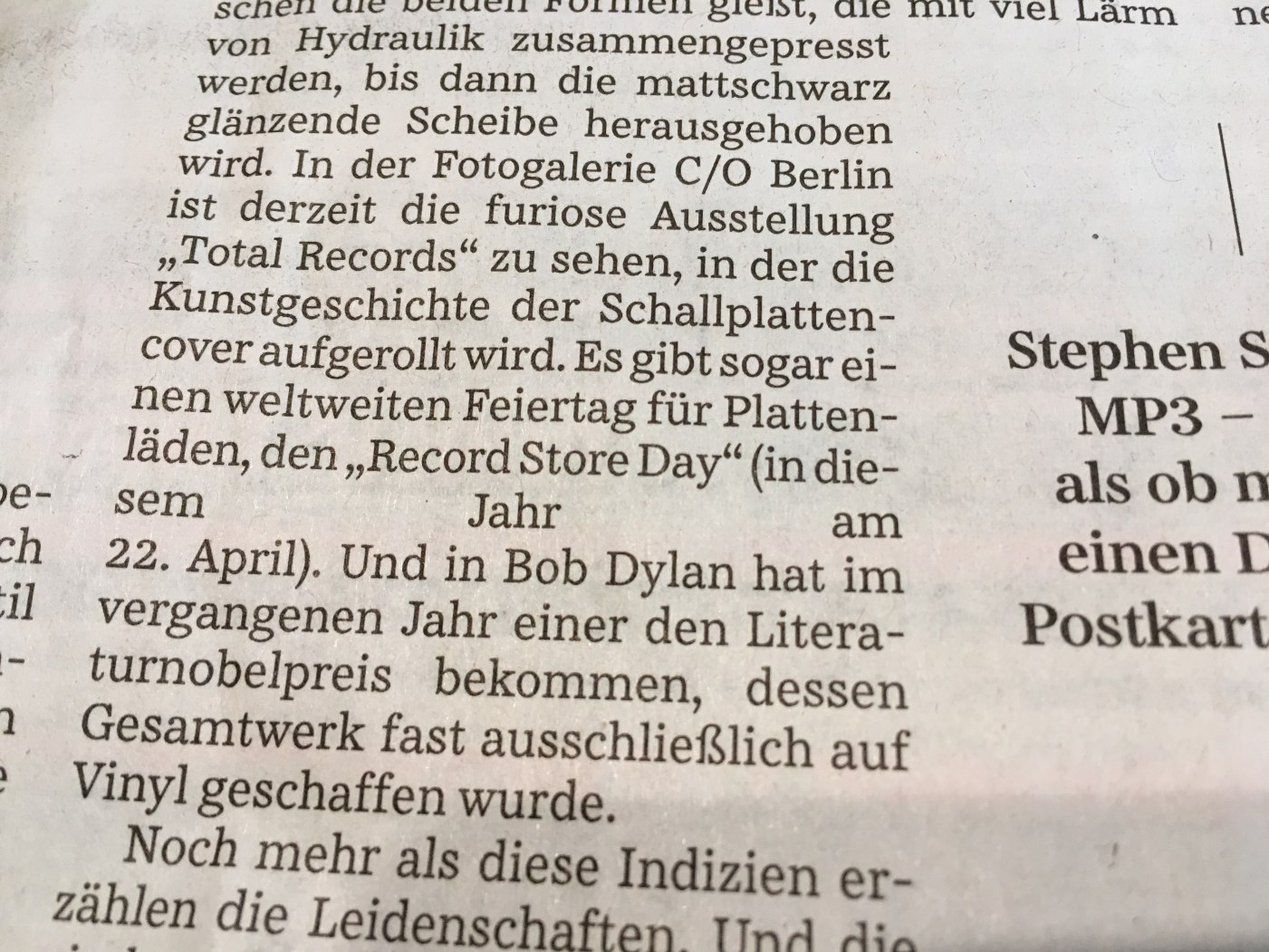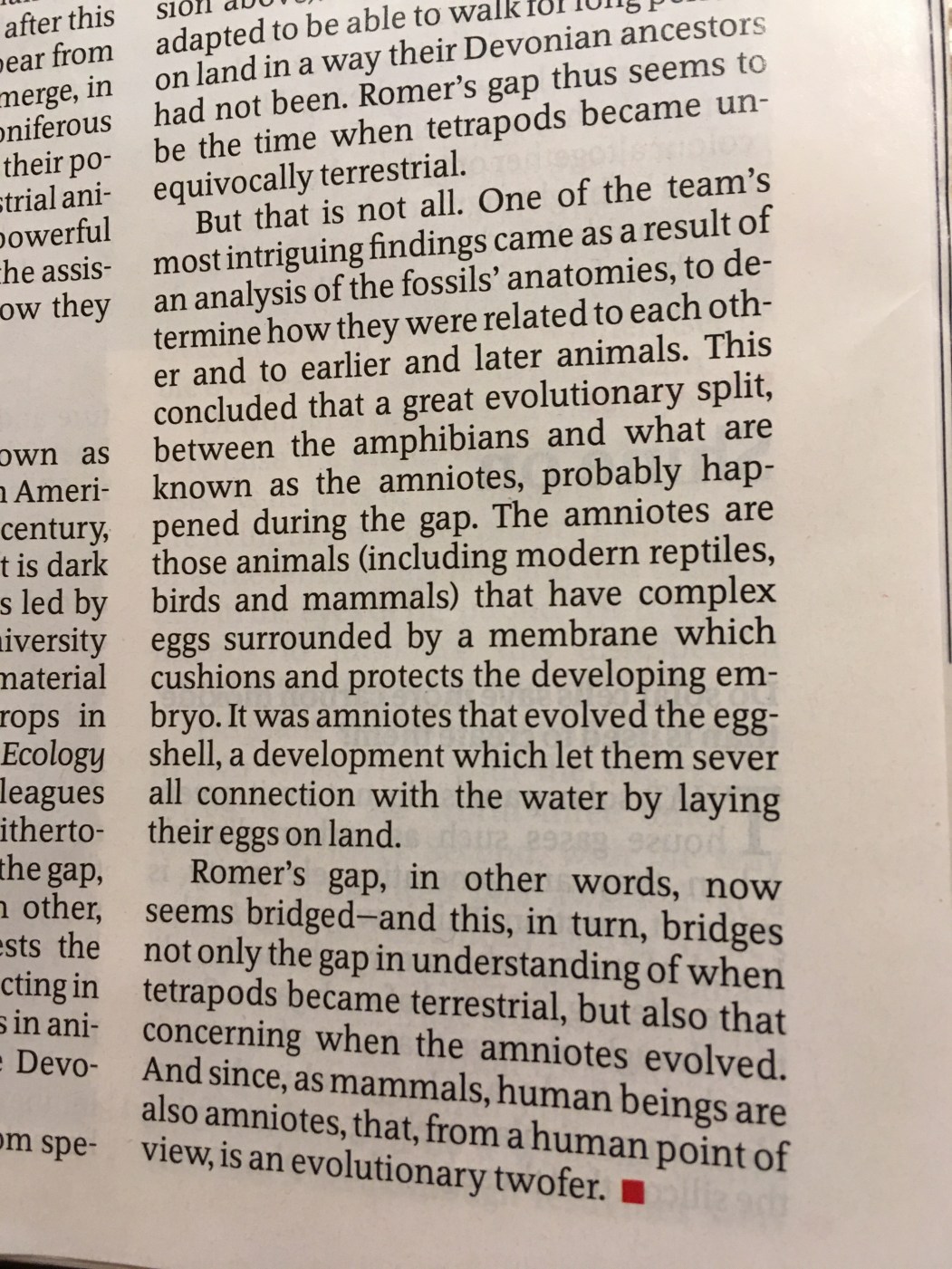
Opinions on justification
I tend to be an anti-justify guy, in print as well as on screen. On screen is more dangerous since you don’t have complete control over how it’s presented. Narrow columns can often create drastically uneven word spaces, especially if you don’t have hyphenation.
A colleague asked me:
... Do you feel you are in the majority on this? (anti-justification) ...
I answered:
Depends on who you ask. I think most people don’t really care, but typographers tend to be an adamant bunch, and they seem to be pretty much 50–50 on justification. If type is set well, with good hyphenation, adequate column widths (55 to 65 characters, incl. spaces, per line), etc., justified is OK. Flush-left-ragged-right (FLRR) also needs to be set carefully, but it always has equal word spacing (providing double spaces haven’t popped up anywhere). Some will say that the shapes created on the right hand side of FLRR setting are distracting, but at least they are on the edge of the text block, not in the middle, where I believe uneven spaces are more distracting. Tests on readability, comprehension and retention have been inconclusive, so it ends up seeming to be mostly a matter of taste.
Robin Kinross’s book on the subject – Unjustified Texts – is great. It seems to be out of print at the publisher’s:
A nice word-play title. The book is not only about justification though – other aspects of typography are also covered. I can recommend it highly.
I’d be happy to hear opinions on this.
This one looks like a forced line break, not noticed in proofreading. I have quite a number of other examples, I bet readers do as well.
Sometimes it’s not overly large word spaces, perhaps just unlucky alignment. Justification can exacerbate the problem and create so-called “rivers of white”, as in this sample.
Since most installed browsers support hyphenation, I do not see any reason to turn it off. Especially on smart phones it enables the reader to grasp more text per line. Thus the number of jumps to the next line and time spent on scrolling goes down. Readers may thus read faster and with more comfort. Therefore I think that hyphenation is of advantage to the reader, especially when text is set justified.
On web: good copywriting, no justify, turn off hyphens.
Good copywriting is always a good idea, not just on the web! :happy:
Why no hyphens?
Therefore I think that hyphenation is of advantage to the reader, especially when text is set justified.
Hyphenation is a must for any justified text from well before Gutenberg (that’s one reason why ebook readers that force justified text without hyphenation are [insert expletive here]).
On the other hand, for ragged text, automatic hyphenation could, at times, produce unwanted or less than ideal results.